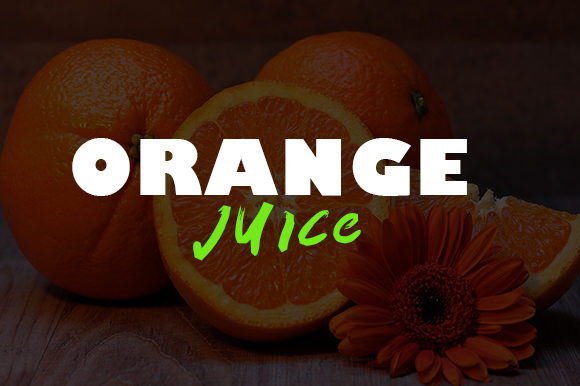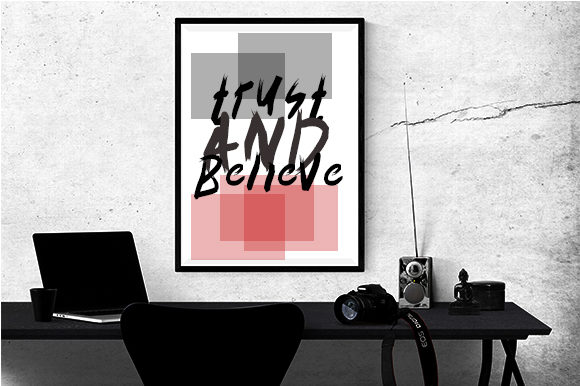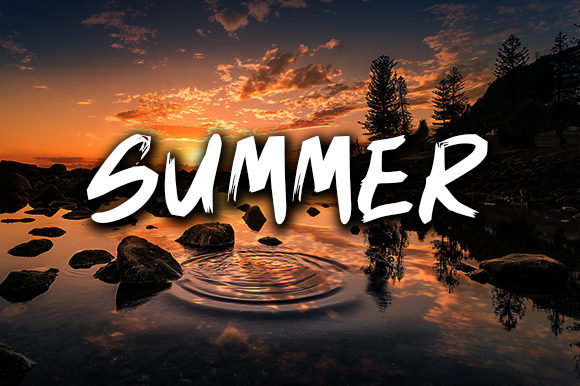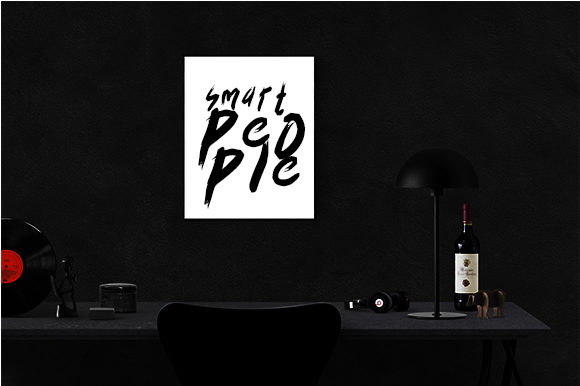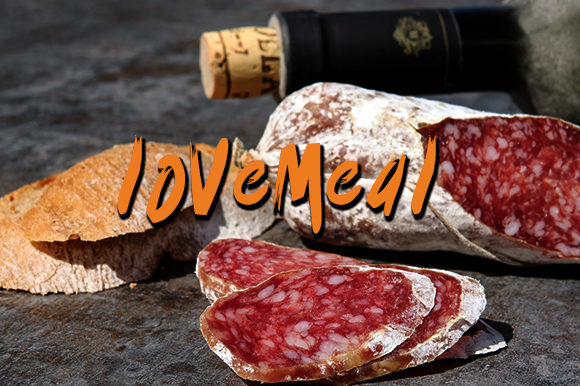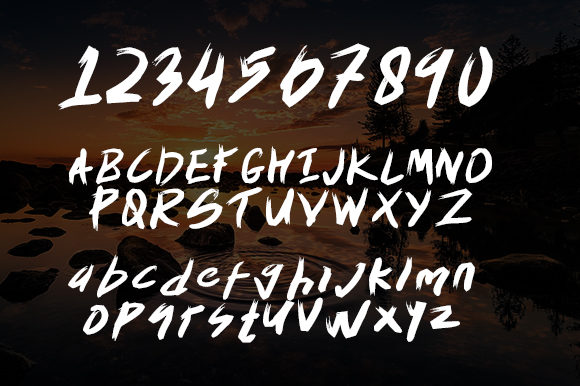
The Designer’s Delight: Exploring the Charm of Damies Font
I’ll never forget the time I was working on a branding project for a trendy boutique, and I just couldn’t find the right font to capture their playful yet sophisticated vibe. That’s when I stumbled upon Damies Font, and it was love at first sight! 💕 With its fun, bold, and handwritten style, it instantly elevated my design and exceeded my client’s expectations. In this article, I’ll share my experience with Damies Font, its unique features, and how to make the most of it in your designs.
An Honest Review of Damies Font
What I Love About Damies Font
- ✨ Authentic and charming: Damies Font has an undeniable charm that adds a personal touch to any design.
- ✅ Highly legible: Despite its bold and playful style, Damies Font remains easy to read, making it perfect for headlines and body text.
- 🎨 Versatile: With its wide range of OpenType features and glyphs, Damies Font can be used for various design projects, from branding and advertising to packaging and more.
While Damies Font is an excellent choice for many design projects, there are a few things to keep in mind:
- 🤔 Limited use in formal contexts: Due to its playful nature, Damies Font might not be the best fit for formal or professional designs, such as corporate reports or academic papers.
- ⚠️ Glyph compatibility: Some glyphs or special characters might not work seamlessly with all software or platforms, so be sure to test your design before finalizing it.
The Story Behind Damies Font
Damies Font was designed with the intention of creating a unique, handwritten font that captures the essence of authenticity and playfulness. The designer aimed to create a font that would add a personal touch to designs, making them more relatable and engaging. While the exact story behind Damies Font might be fictional, its charm and character are undeniable.
| Font Name | Damies Font |
| Author | LS TEAM |
A: Damies Font is perfect for creative projects, branding, advertising, packaging, and more. Its playful and bold style makes it an excellent choice for designs that require a personal touch.